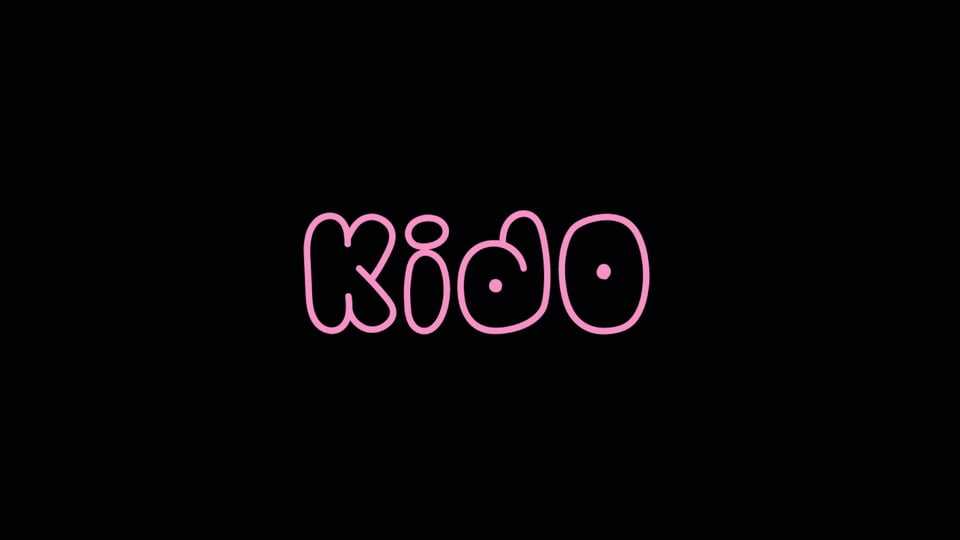
Download Kido font, a hand lettered typeface inspired by 60’s cartoon. Kido can be used in modern and retro design and it’s mostly fit for cute cartoon and cute design. It will be a little bit weird for logotype, but sometime it’s ok to be weird.